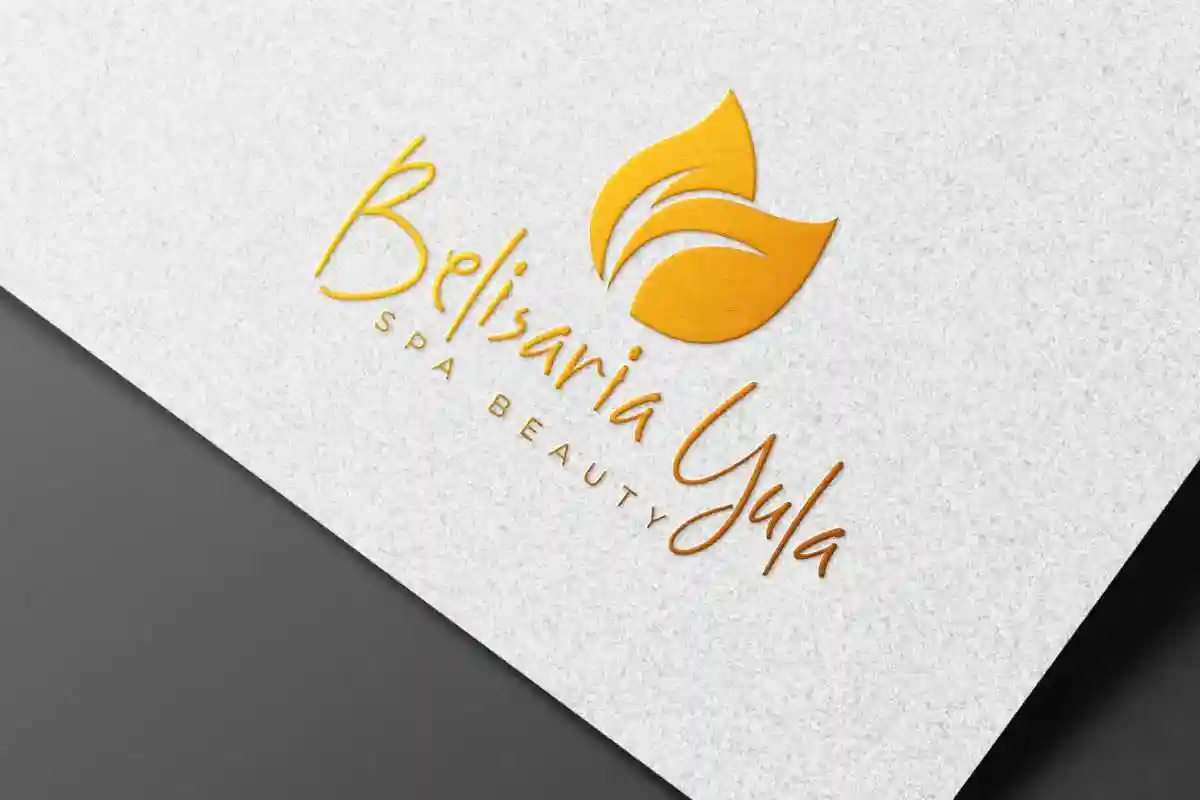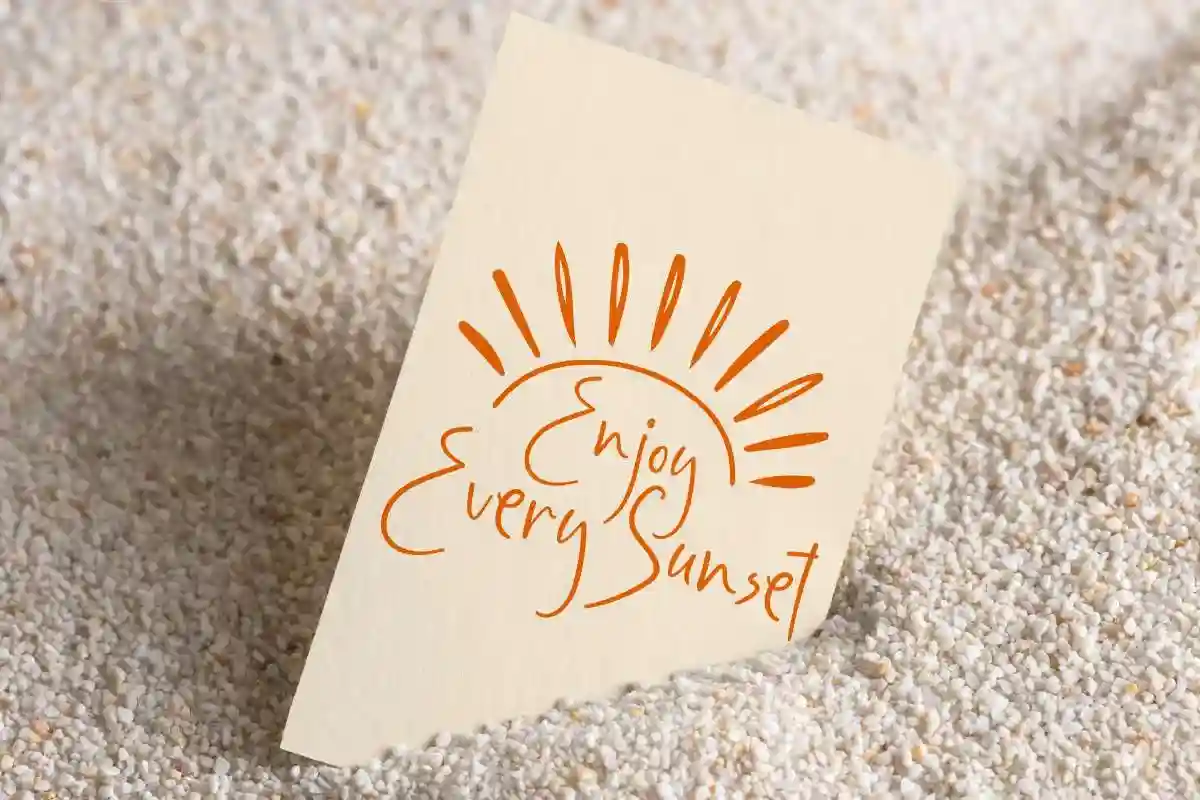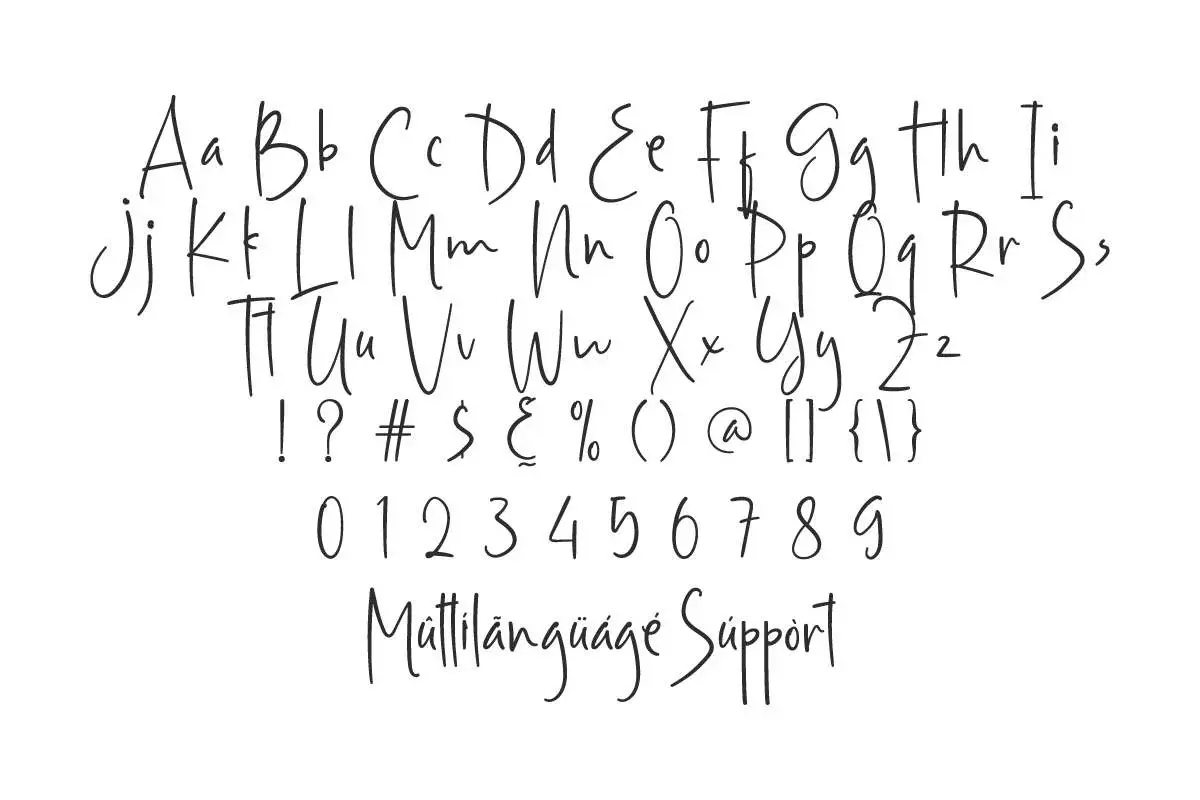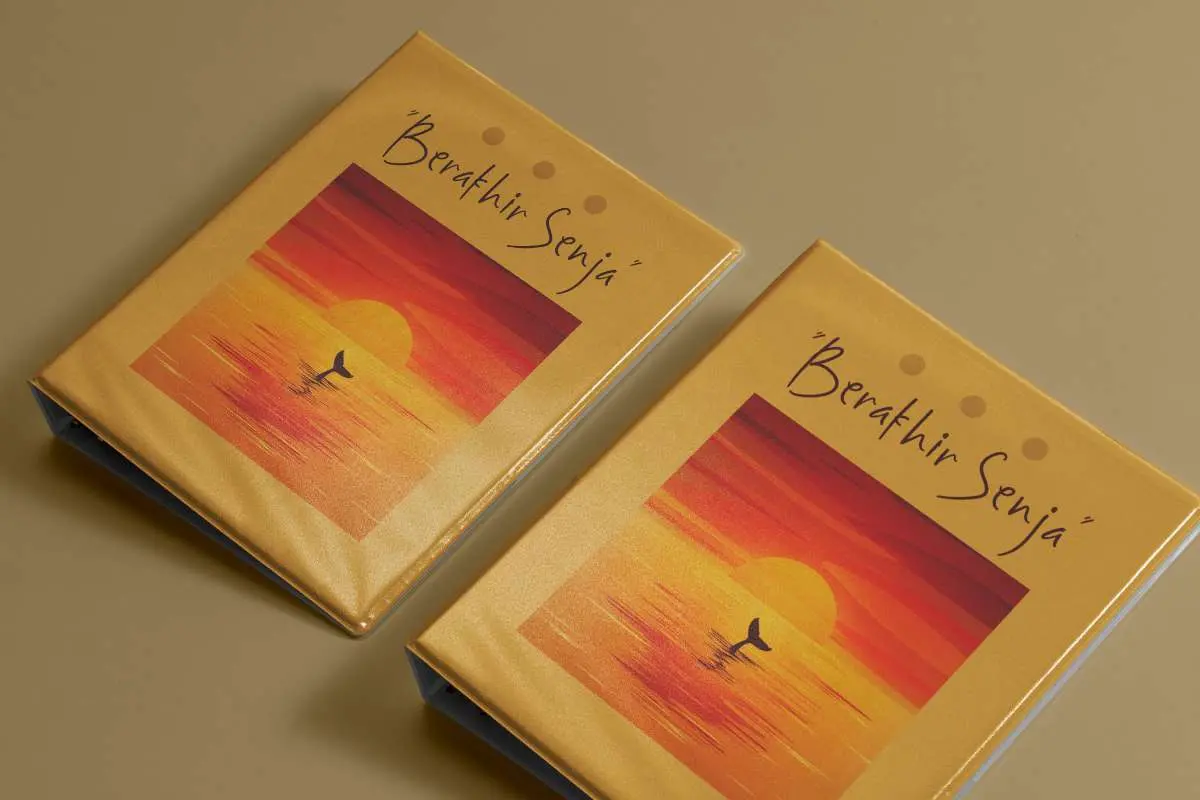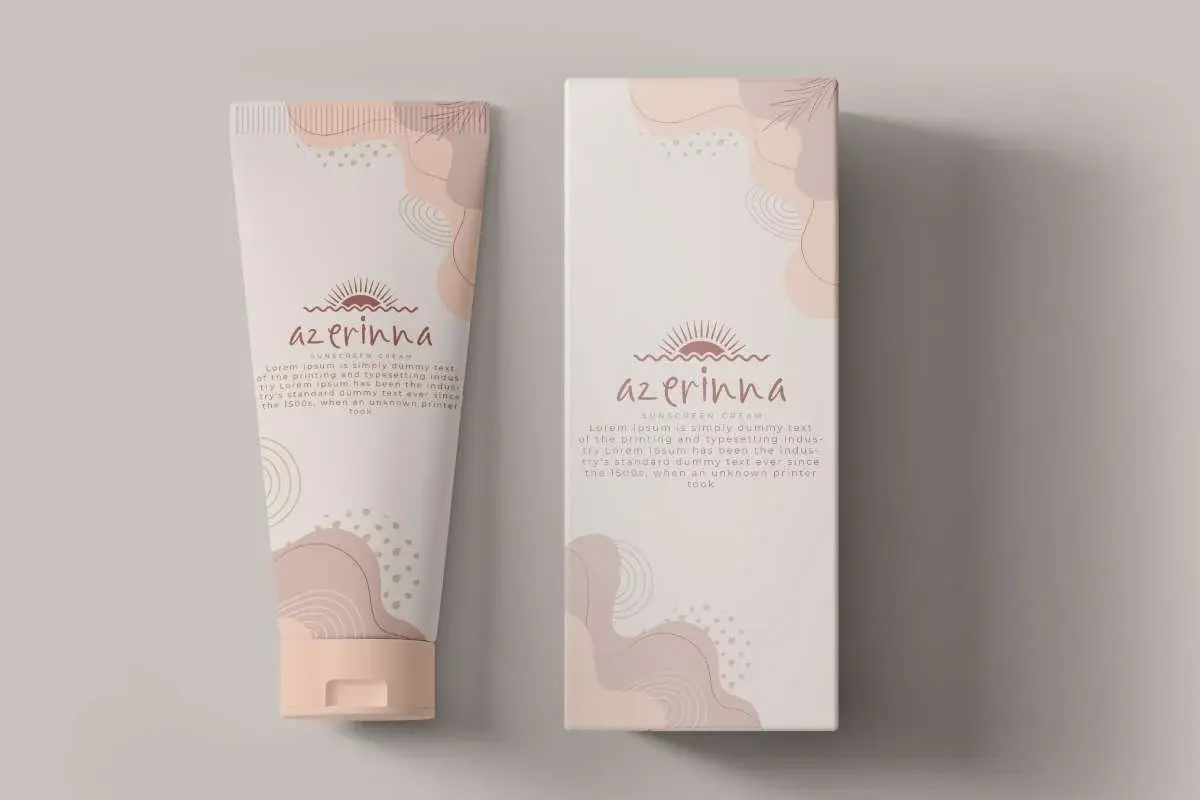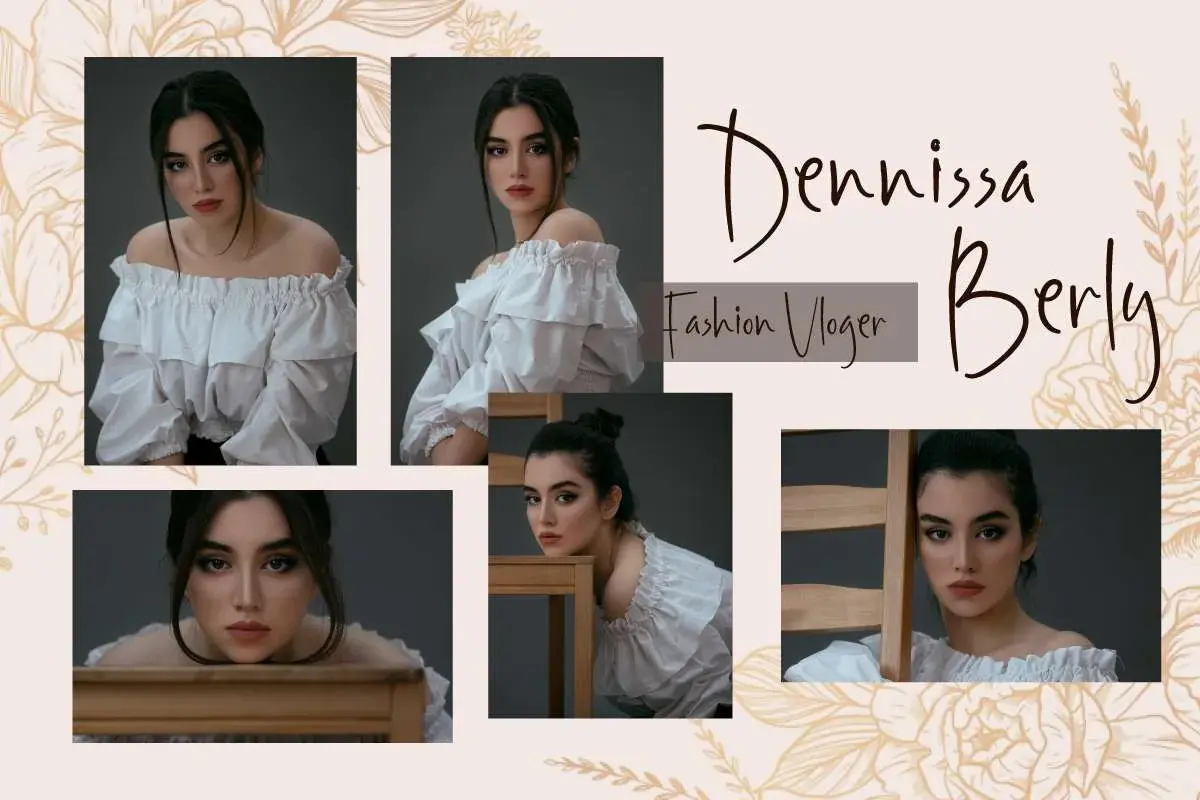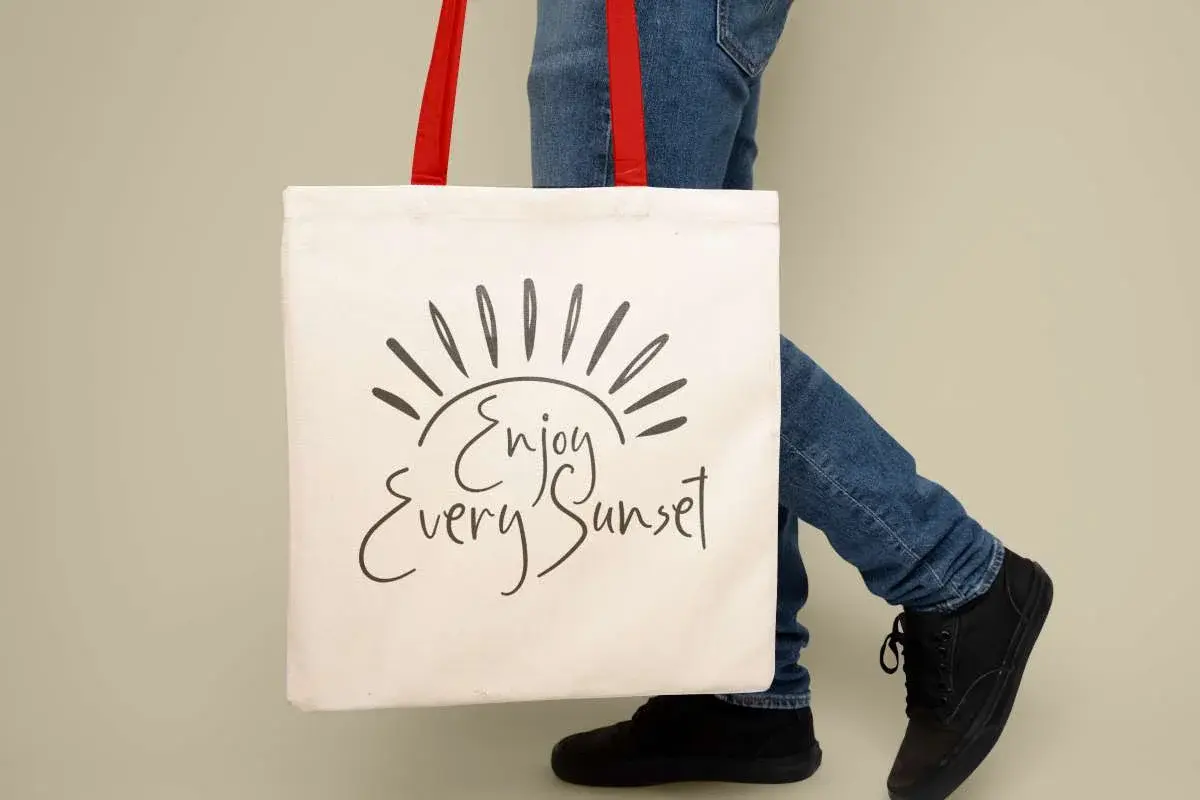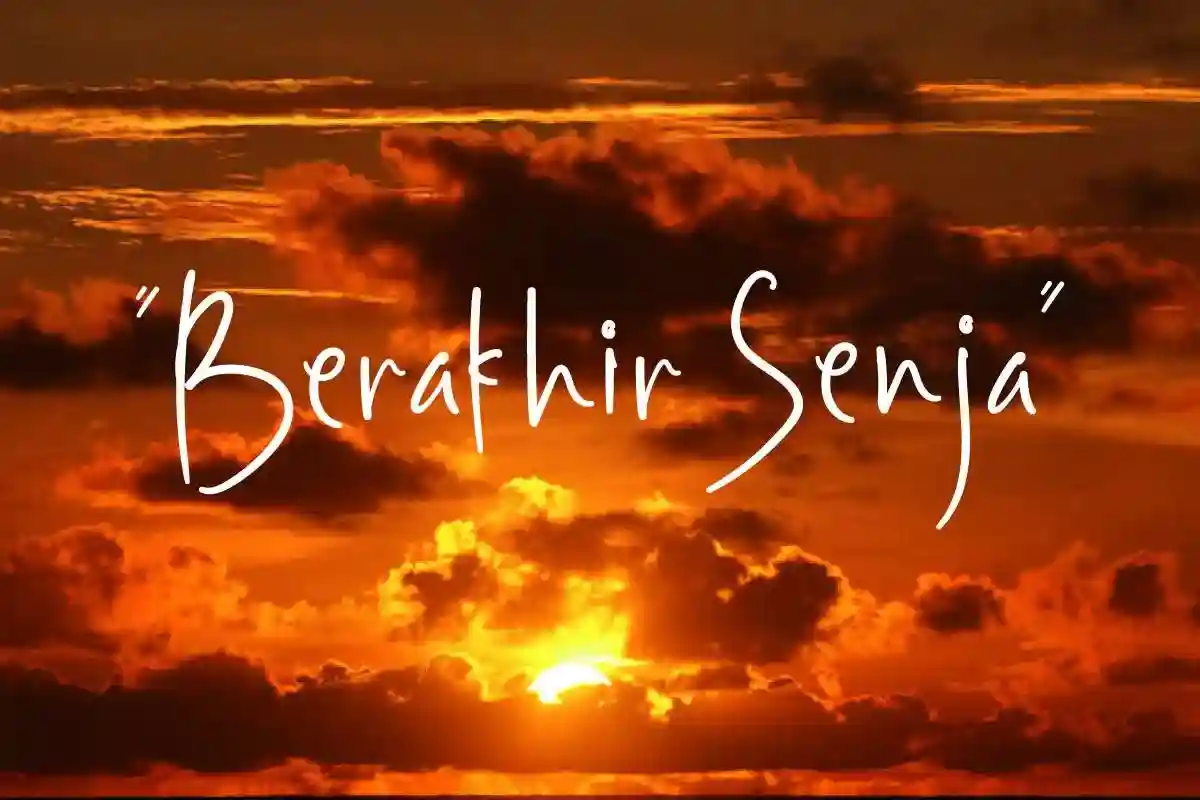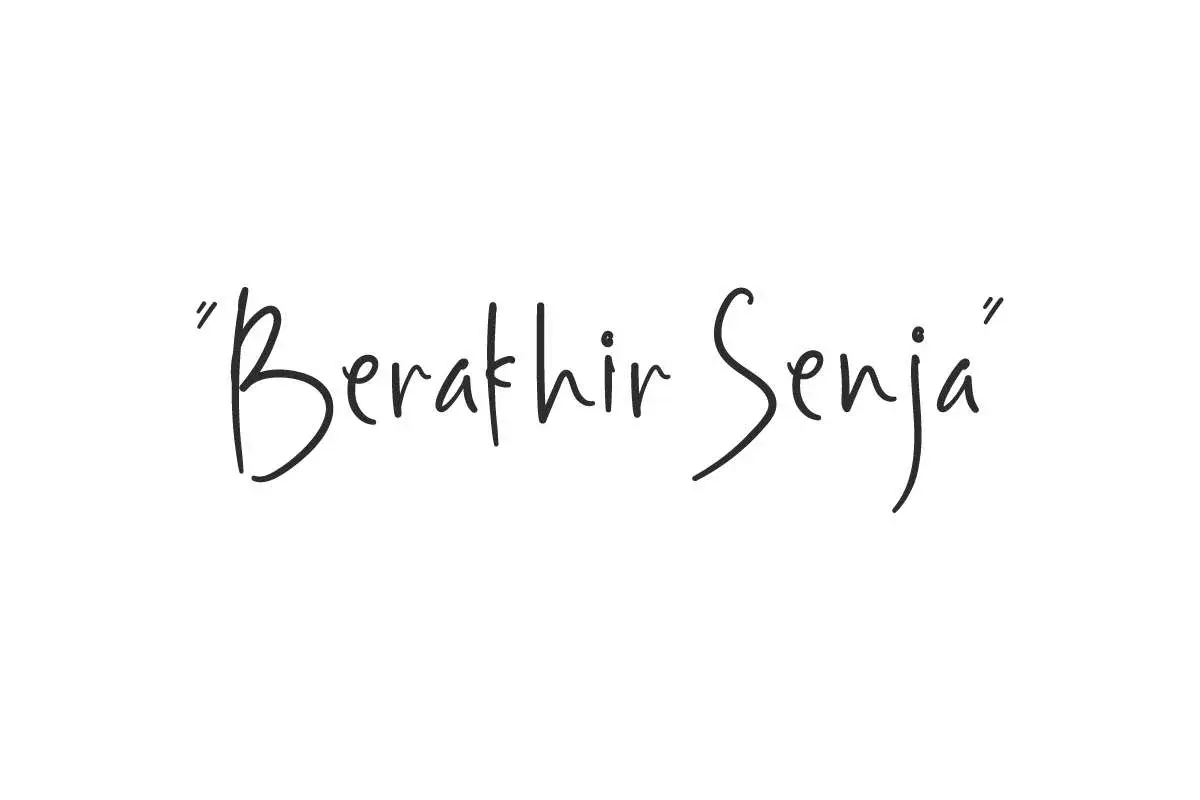
Berakhir Senja Font
Berakhir Senja Font is a simple yet beautiful handwritten font with a casual look. It will be perfect for apparel, cosmetic, label, spa, stationery, etc.
Berakhir Senja Font is a casual handwritten font made simple and attractive. Its neat thin brush makes it a standalone charm that will enhance your project, such as brand logo, brochure, business card, catalog, cover, embossed design, flyer, greeting card, invitation, greeting cards, label, poster, product design, quotes, screen print, signage, stationery, sticker, title, watermark, website, and many more!
Berakhir Senja Font comes with a full set of Uppercase and Lowercase Basic Characters, Number, Punctuation, Symbol. It would be perfect as main text or in combination with other font types. Use this for your business industry such as, architect, boutique, clothing brand, creator content, cosmetic, event organizer, fashion designer, florist, furniture, graphic design, handicrafts, photography, printing, publishing, real estate, restaurant, skincare, spa salon, wedding, writer, etc.